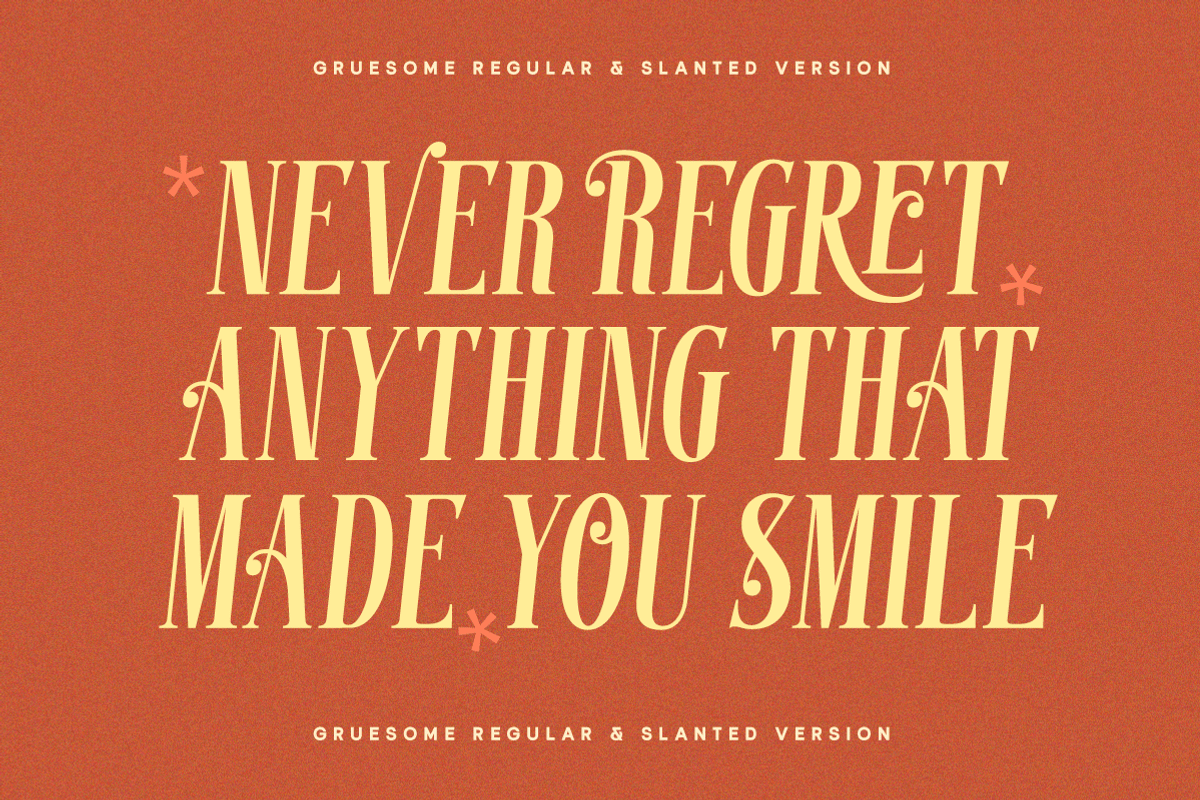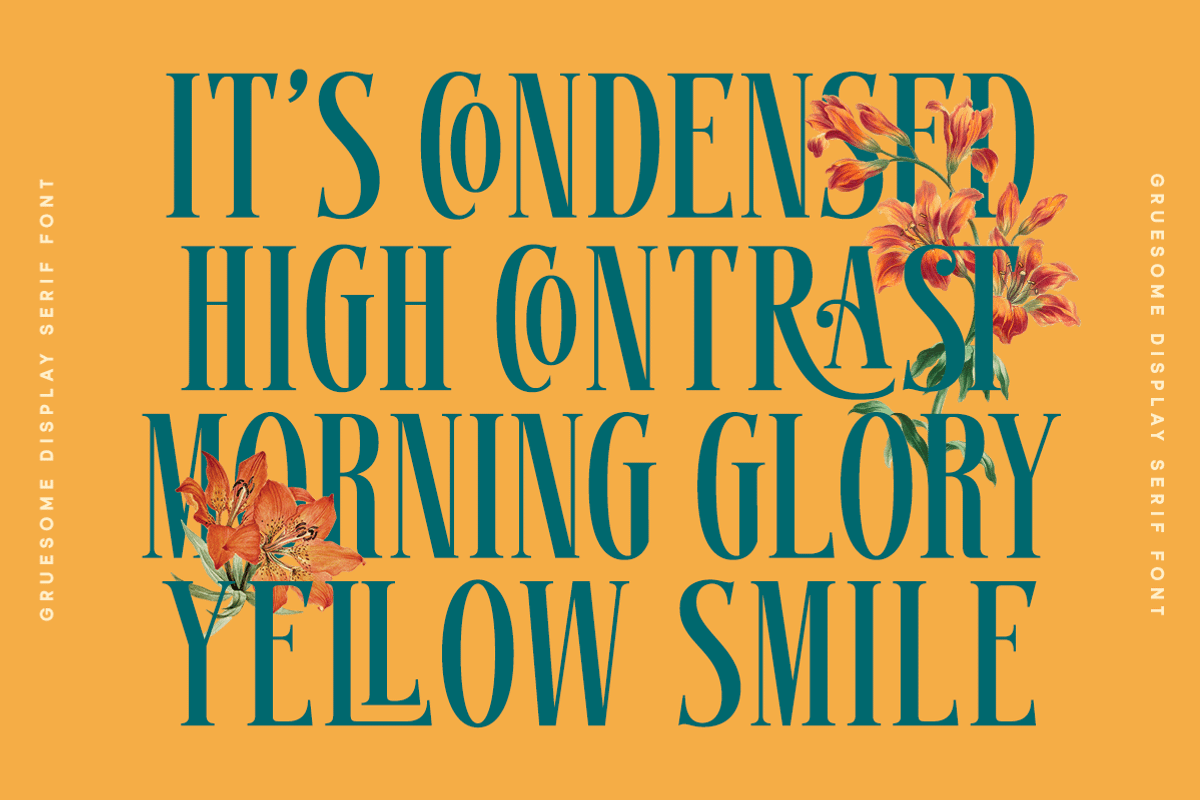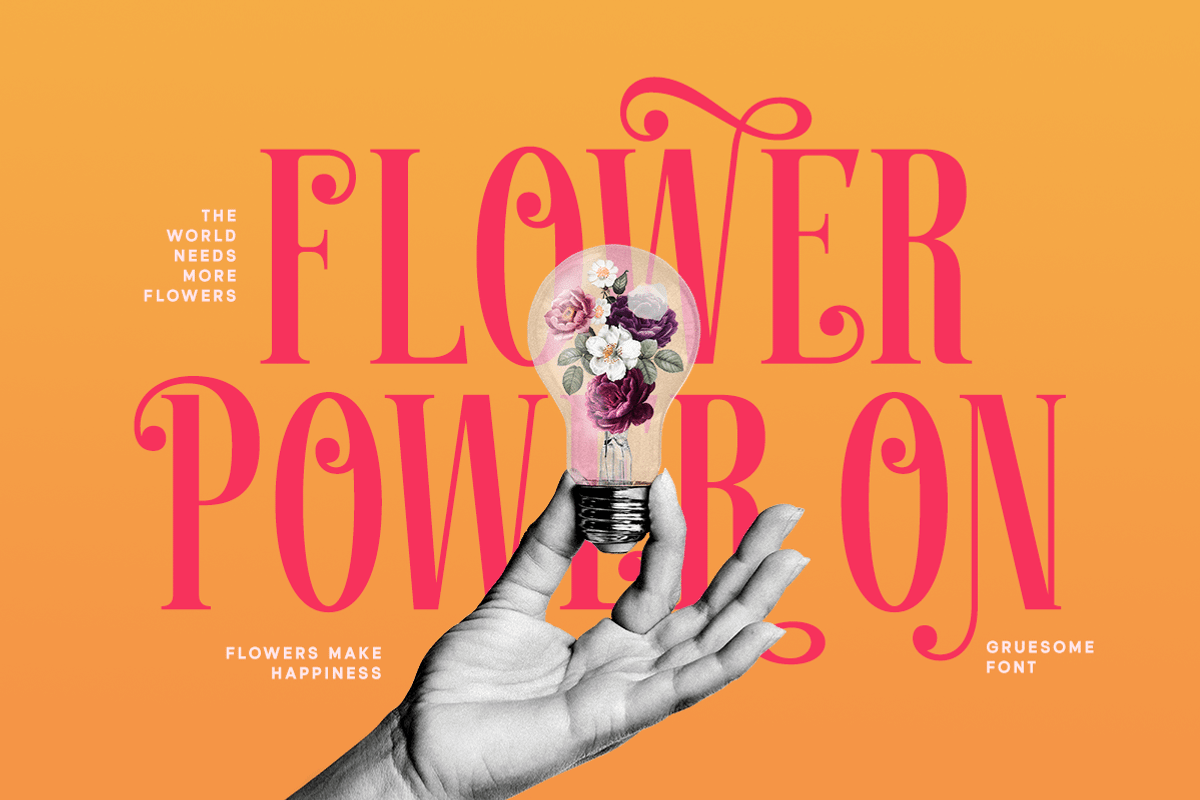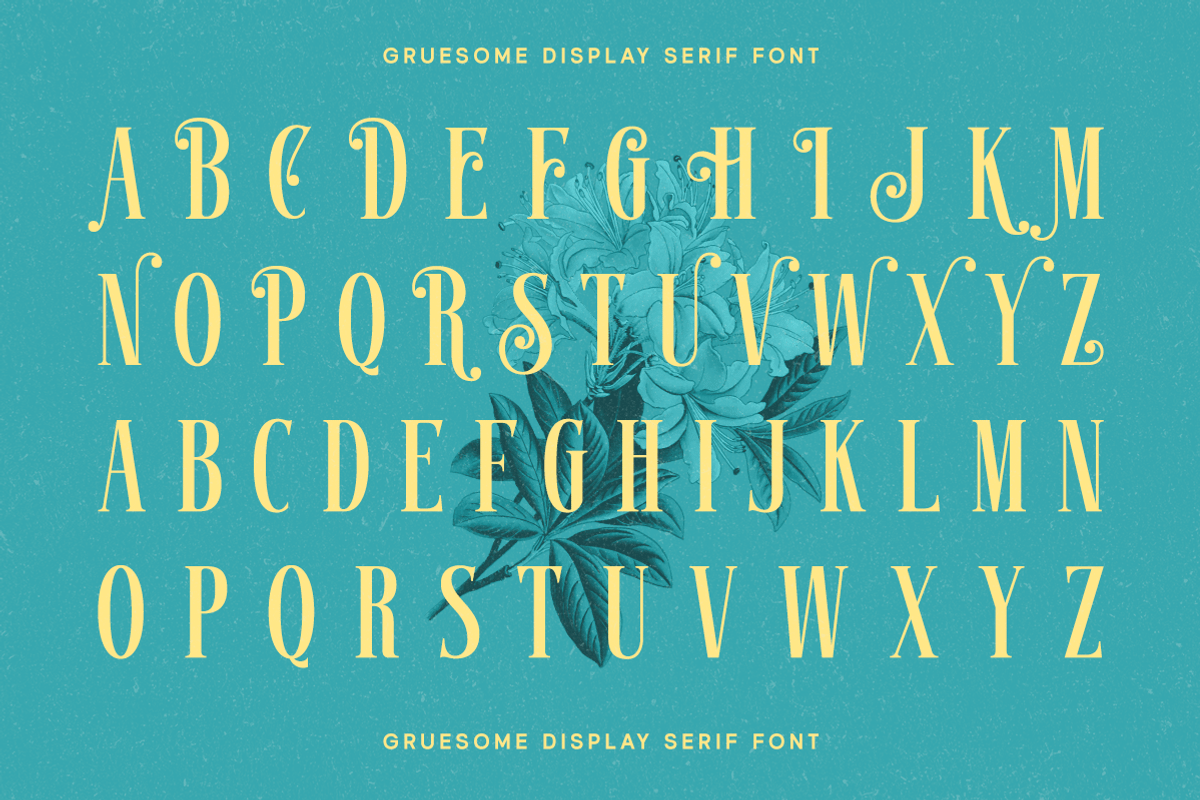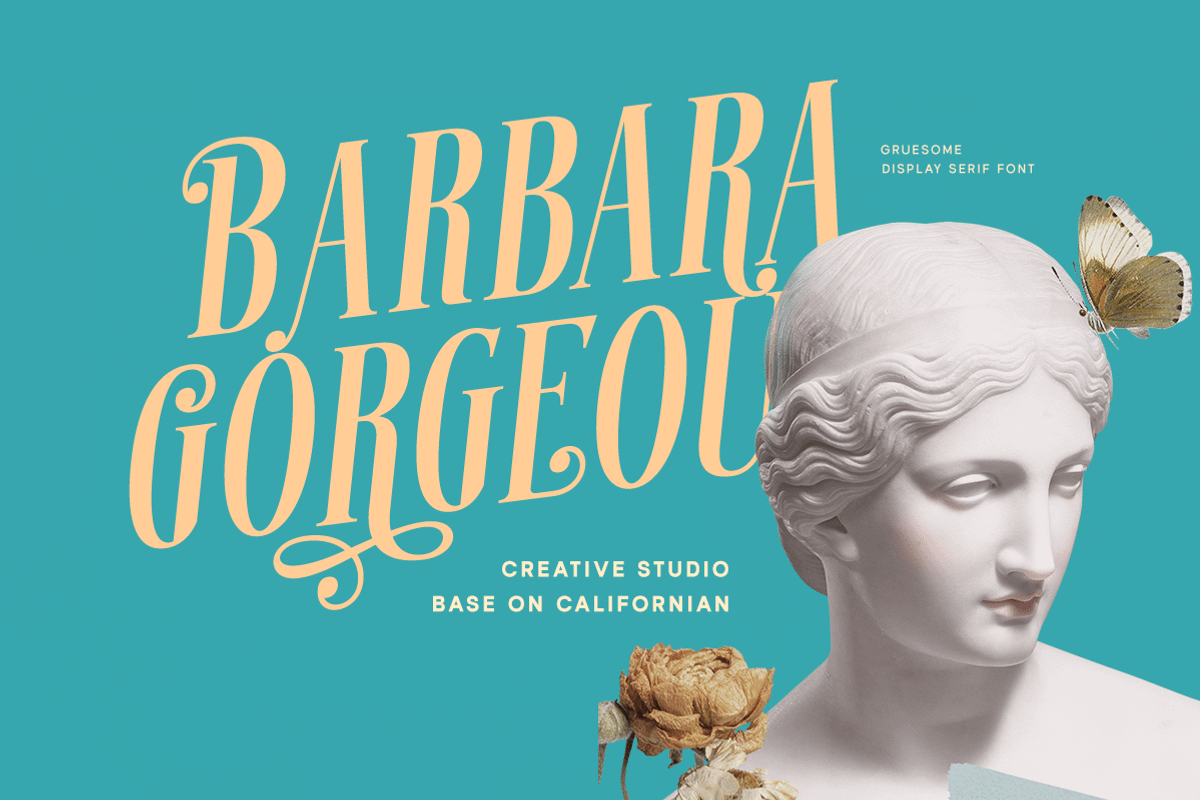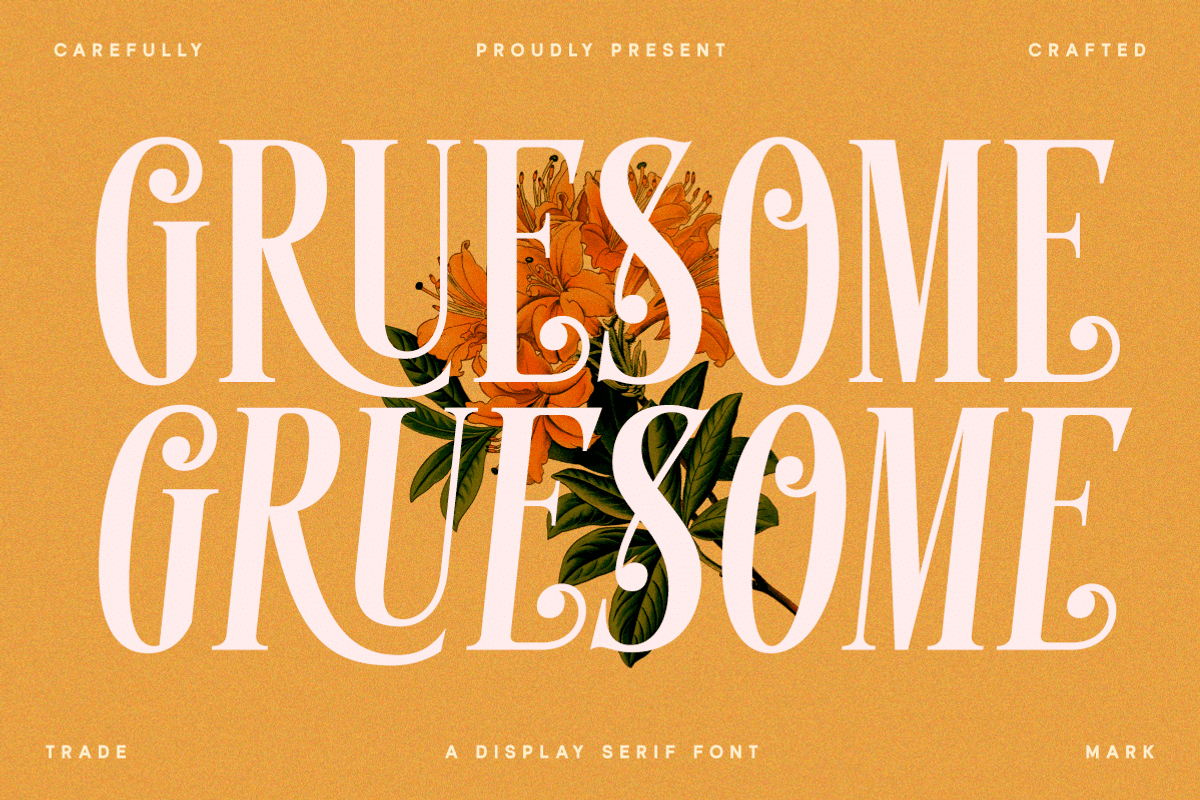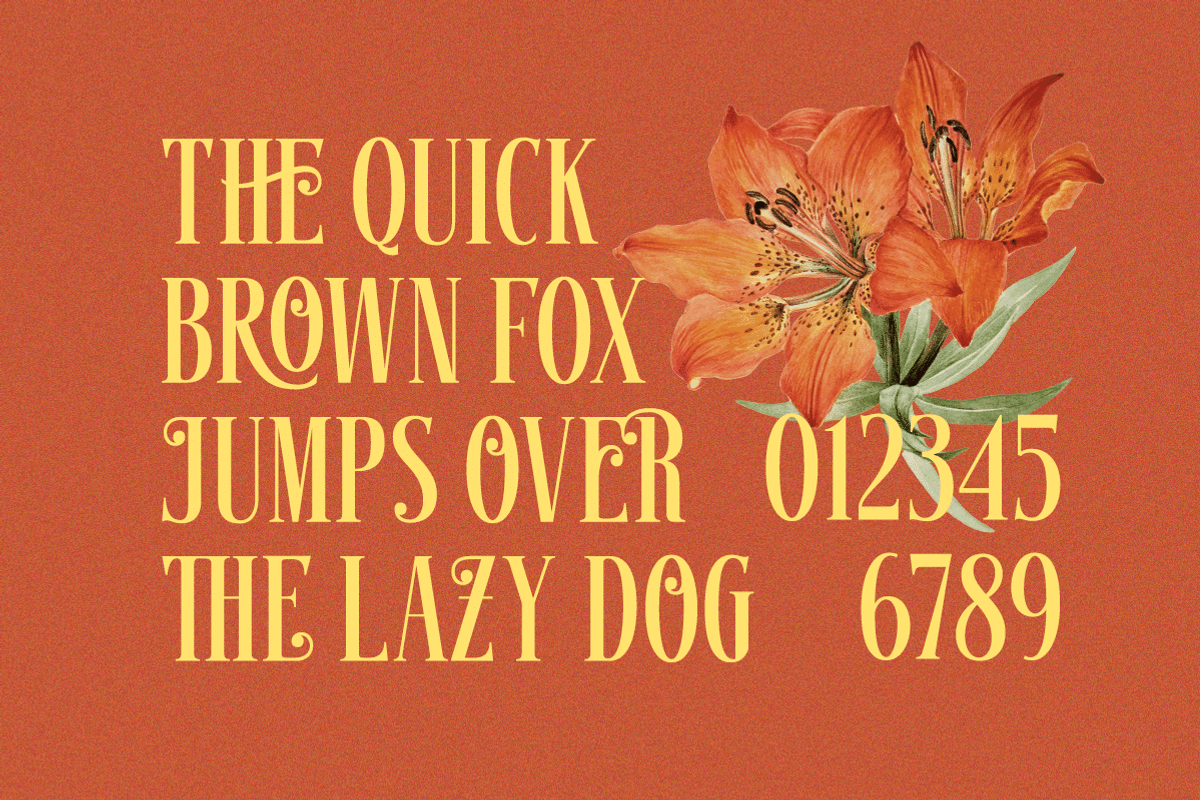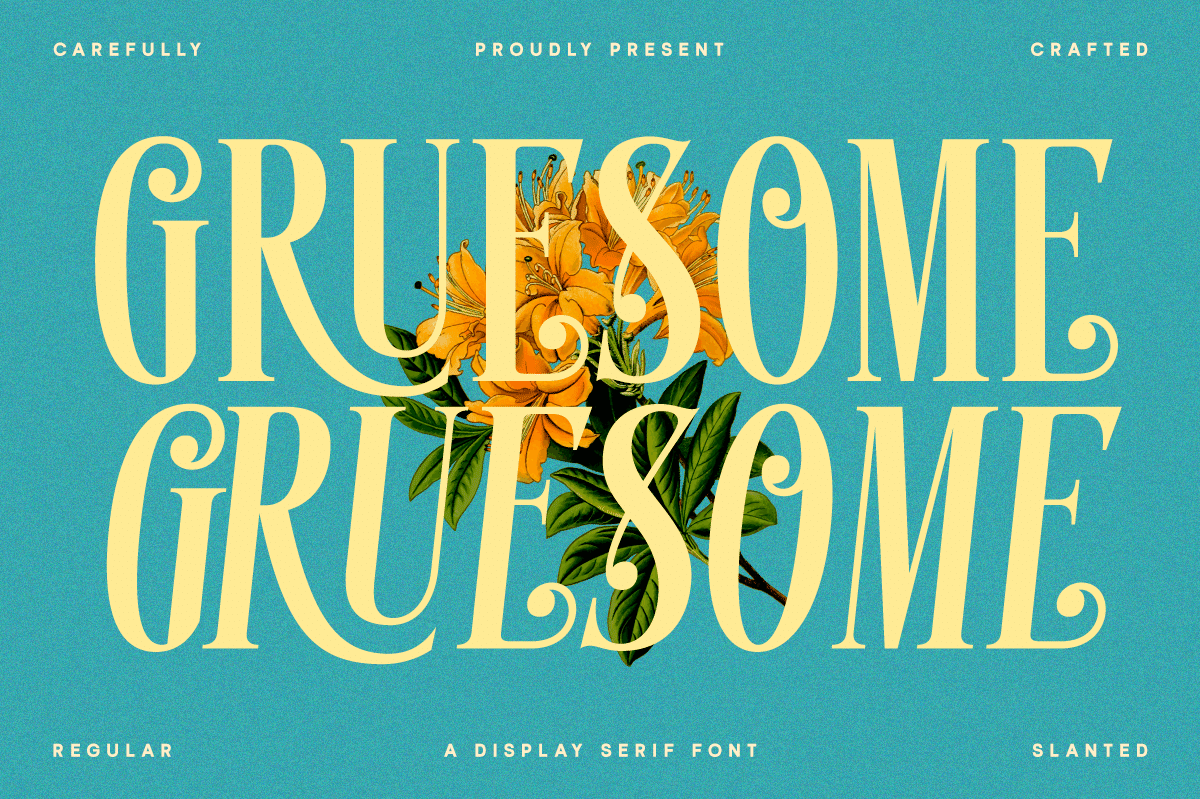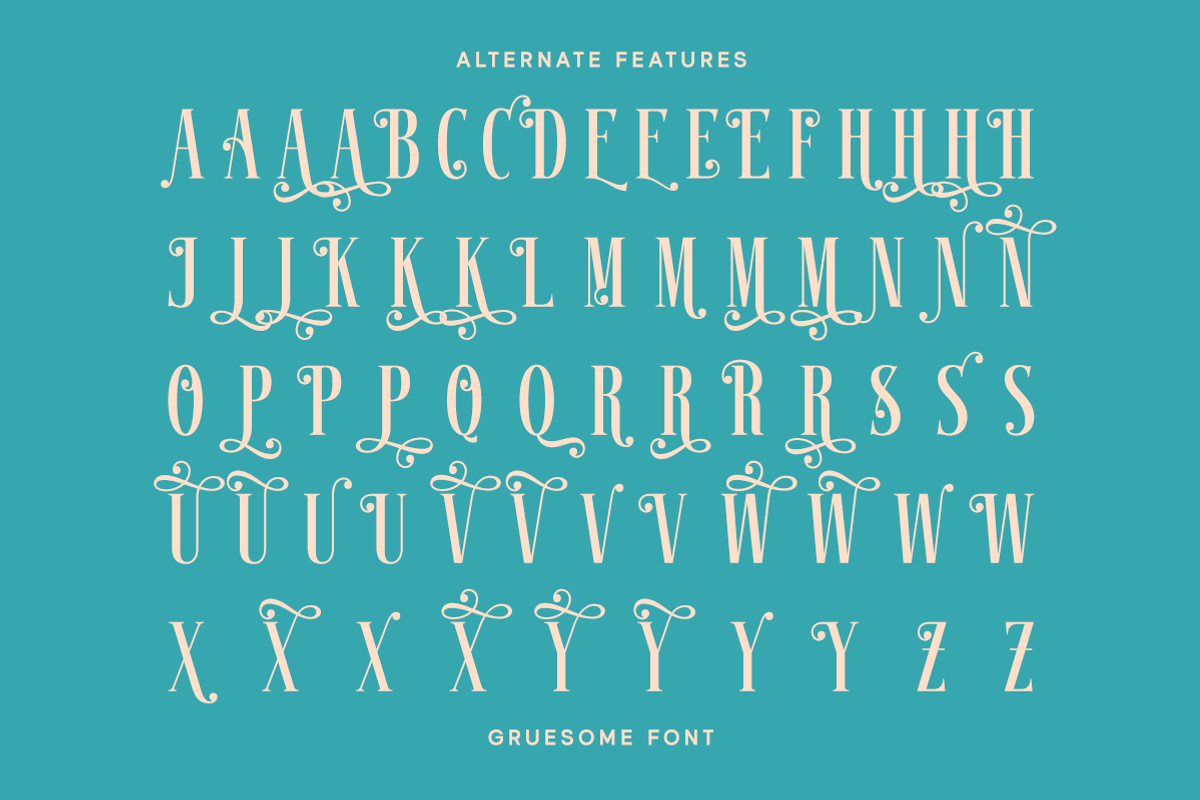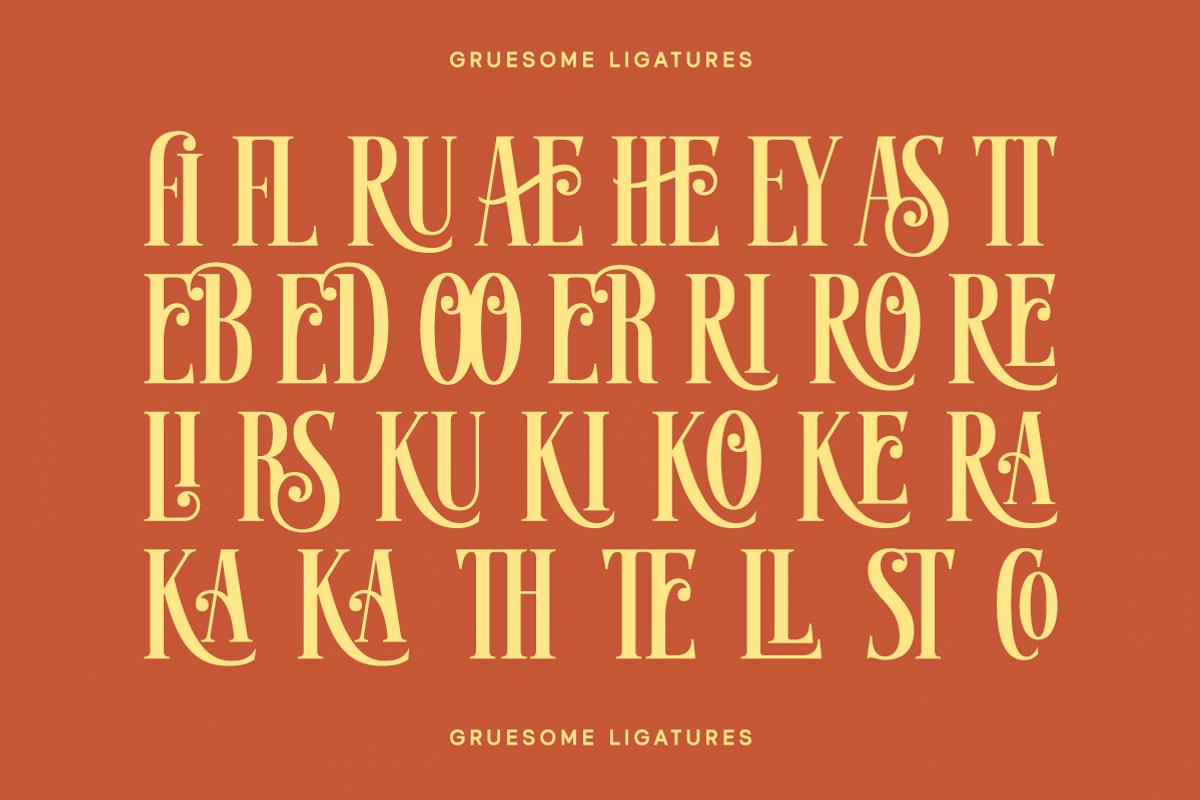
Gruesome - Display Serif Font
Introducing, Gruesome - a display serif font with classic & vintage looks. The stylistic alternates and ligatures make this font event more unique and stands out rather than the regular serif font. This font perfectly made to be applied especially in logo, and the other various formal forms such as invitations, labels, logos, magazines, books, greeting / wedding cards, packaging, fashion, make up, stationery, novels, labels or any type of advertising purpose.
- Regular & slant style
- Alternates & Ligature